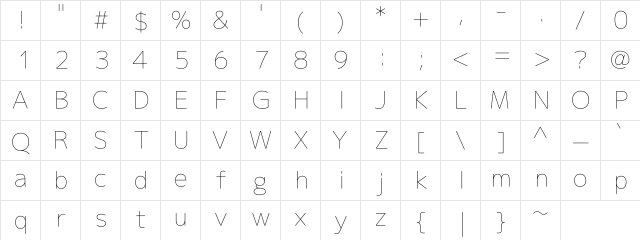
M+ 2p thin
Design Context for M+ 2p Typeface
M+ 2p is a composed and adaptable typeface that performs quietly and consistently across a wide range of design contexts. Its slender proportions lend an understated elegance to any composition.
Pro Tip: Pair M+ 2p with a font of contrasting weight or personality to build a more expressive typographic hierarchy.